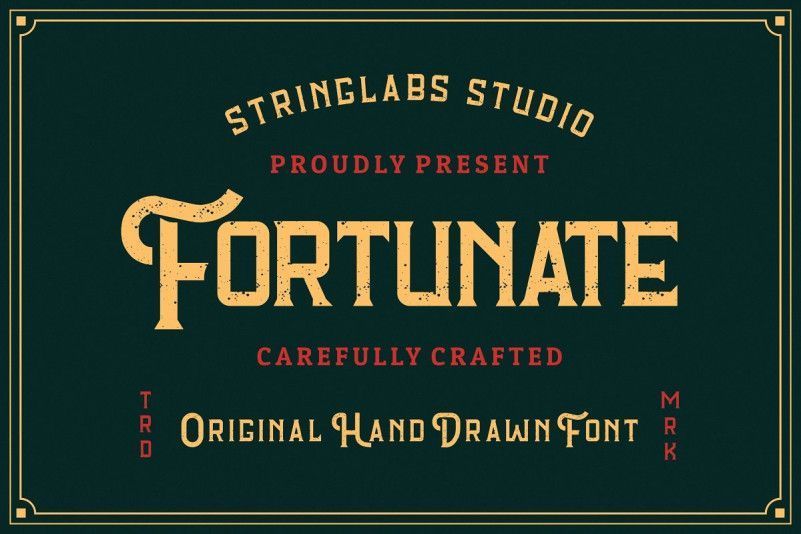
Fortunate Hand Drawn Display Font
Fortunate Font is a single-weight display typeface. It is bold, heavy and fun to play around with.
It’s eye catching but also blends well when in use. It is retro-inspired and strikes a nice balance between formal and playful.
It works perfectly for creative project such as logo, T-shirt / apparel, badge, invitation, packaging,headline, poster and magazine.